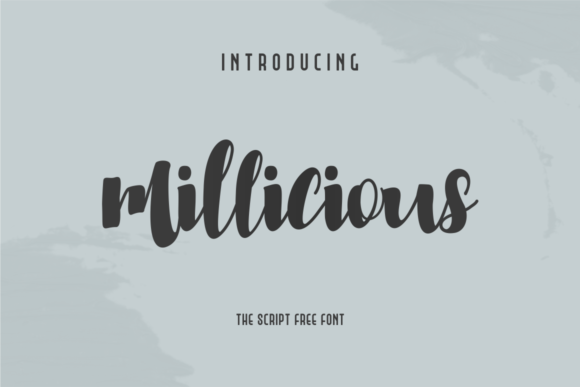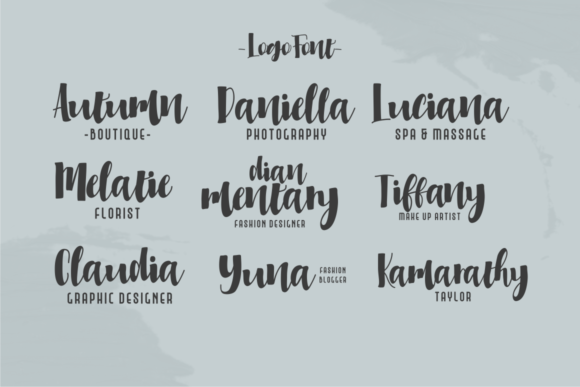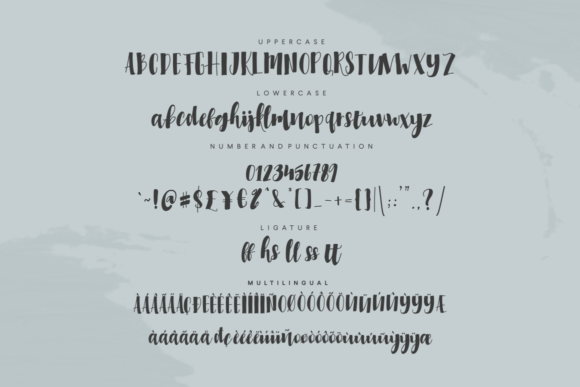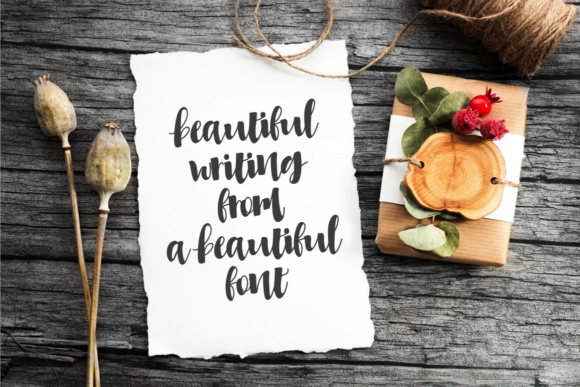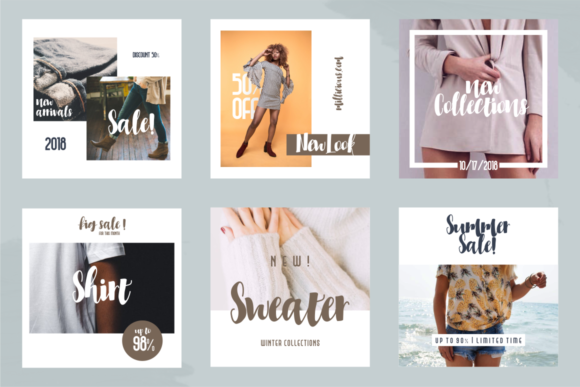
Millicious Font
About Millicious Font
The Millicious is a beautiful handwritten script. Its bold letters have a good readability. Perfect to add a striking look to your design.